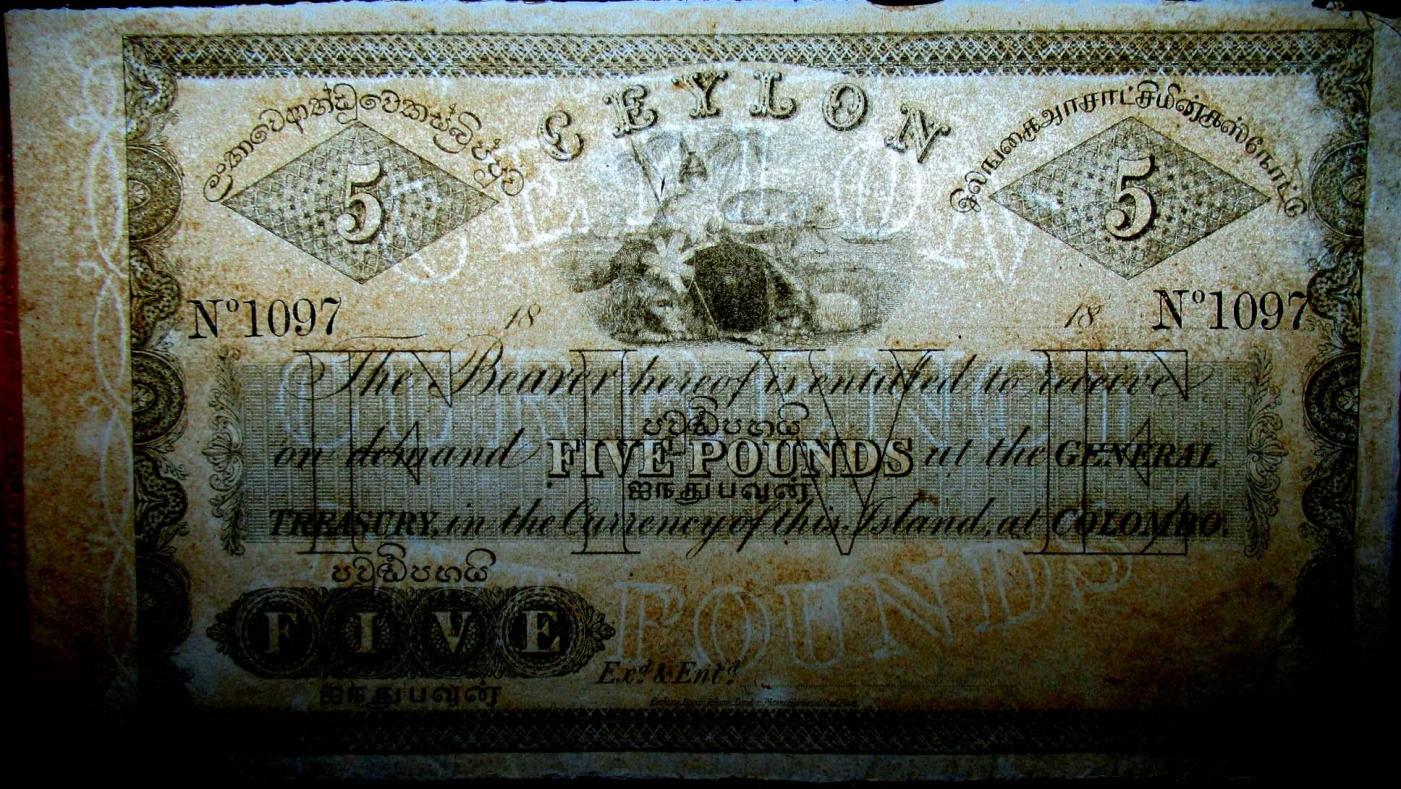
Fonts used 19th century Ceylon Currency Watermarks
I am trying to identify Fonts used for watermarks on Ceylon Currency Notes from 1850 to 1940 of which I show images on http://notes.lakdiva.org/watermarks.html . Most online font identification sites have trouble with these watermark images as the text on the currency note is mixed in with watermark text which I have highlighted by back illumination.
These are probably standard 19th-century fonts. I am trying to create images of just the watermark for my educational website  http://notes.lakdiva.org/ in which I wish to document these currency notes and having the fonts identified will make the process practical and better than just trying drawing them.
For example, in the attached image the watermark reads CEYLON CURRENCY FIVE POUNDS written in a bright outline in 3 lines. It is also posted at http://notes.lakdiva.org/british/psd/1850_gtgc_sterling.html
Any help in identifying the 5 or 6 fonts used on the watermarks will be much appreciated.
Here are a few close looking typefaces to get you on the right track.
Nothing identical because as Riccardo said correctly, there are obvious reasons.
1) CEYLON top lettering in similar to "OPTI Circus Caps". A google search for Circus typefaces will get you some similar faces, Letraset did one years ago which for the life in me I forget the name.
2) CEYLON CURRENCY FIVE POUNDS watermark try "Cheque Black" or "Engravers Roman".
3) THE BEARER... "Englische Schriebschrift" or "Bank Script" might help.
4) CEYLONESE WRITING - Search for Sinhalese type in google, there will be a typeface built into OSX or Windows for sure.